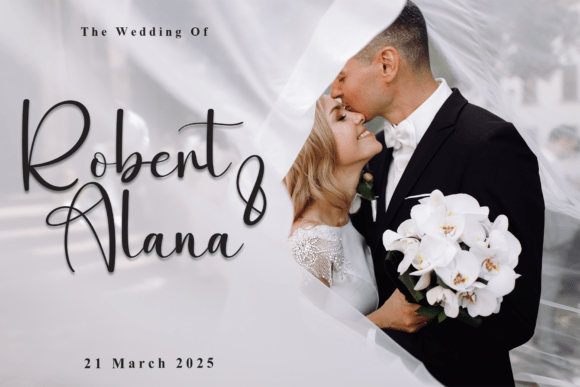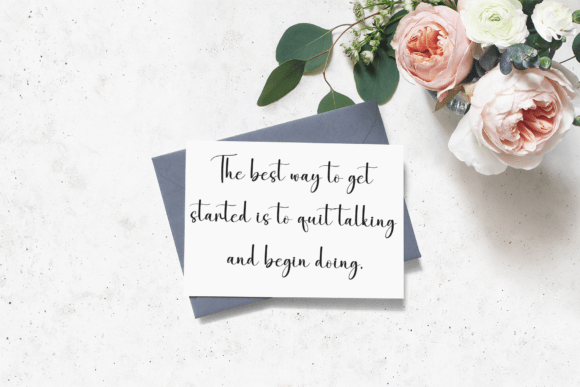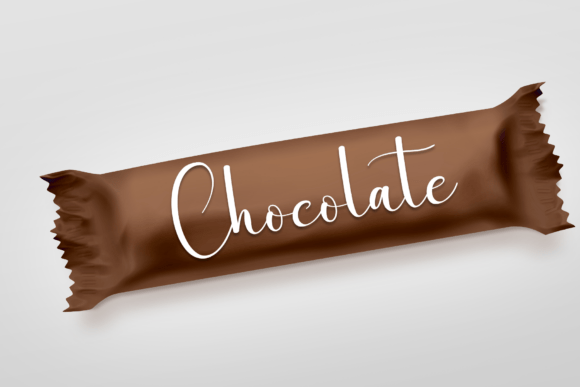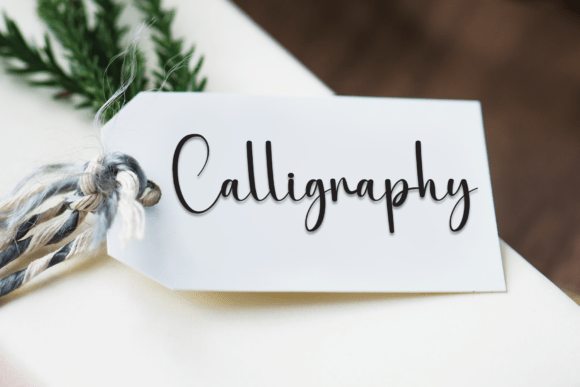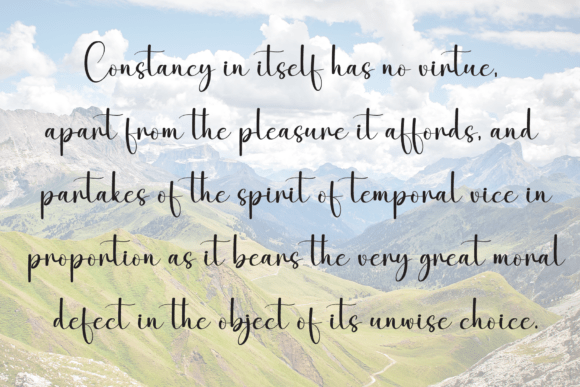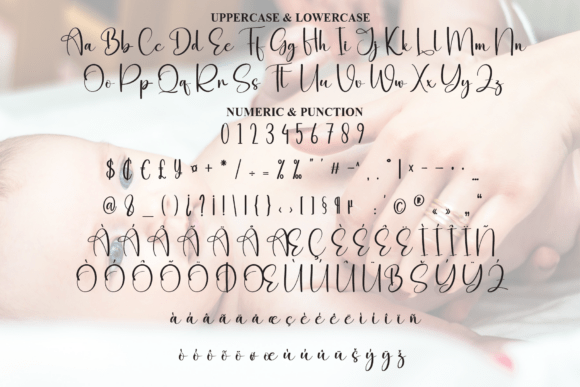
Introducing Body Baby Font: Elevate Your Designs with Elegance and Fluidity
In the world of typography, few fonts manage to capture the essence of elegance and fluidity as effortlessly as Body Baby Font. This stylish handwritten script font has been making waves in the design community, and for good reason. Its smooth, flowing strokes create a natural and sophisticated feel, making it the perfect addition to any design project that requires a touch of class and charm.
The Characteristics of Body Baby Font
Body Baby Font is a true standout in the world of script fonts. Its unique blend of traditional and modern elements creates a distinctive look that is both timeless and contemporary. Here are just a few of the key characteristics that set Body Baby Font apart:
- Smooth, flowing strokes: The fluid strokes of Body Baby Font create a sense of movement and energy, adding a dynamic touch to any design.
- Elegant and sophisticated feel: The font’s refined lines and curves evoke a sense of luxury and sophistication, making it perfect for high-end branding and design projects.
- Natural and organic look: The handwritten nature of Body Baby Font gives it a natural, organic feel that is both approachable and relatable.
- Perfect for creative projects: Whether you’re designing an invitation, a logo, or a website, Body Baby Font is the perfect choice for adding a touch of elegance and whimsy.
Uses for Body Baby Font
Body Baby Font is an incredibly versatile typeface that can be used in a wide range of design projects. Here are just a few ideas to get you started:
- Branding and logos: Use Body Baby Font to create a sophisticated and memorable logo that sets your brand apart.
- Invitations and stationery: Add a touch of elegance to your invitations, wedding stationery, and other paper goods with Body Baby Font.
- Web design: Use Body Baby Font to create a beautiful and engaging website that showcases your brand’s personality.
- Packaging and product design: Add a touch of whimsy and sophistication to your product packaging with Body Baby Font.
Why Designers and Crafters Love Body Baby Font
Body Baby Font has quickly become a favorite among designers and crafters, and it’s easy to see why. Here are just a few reasons why this font has captured the hearts of so many:
- Unique and distinctive: Body Baby Font is a true standout in the world of typography, offering a unique and distinctive look that sets it apart from other fonts.
- Elegant and sophisticated: The font’s refined lines and curves evoke a sense of luxury and sophistication, making it perfect for high-end design projects.
- Easy to read: Despite its elegant and flowing strokes, Body Baby Font is incredibly easy to read, making it perfect for use in a wide range of design projects.
- Versatile: Body Baby Font can be used in everything from branding and logos to invitations and web design, making it a valuable addition to any designer’s toolkit.
Tips for Using Body Baby Font
While Body Baby Font is incredibly easy to use, here are a few tips to help you get the most out of this beautiful typeface:
- Use it sparingly: While Body Baby Font is incredibly elegant and sophisticated, it can be overwhelming if used too much. Use it sparingly to add a touch of class and whimsy to your design.
- Pair it with contrasting fonts: Pair Body Baby Font with contrasting fonts to create visual interest and add depth to your design.
- Experiment with different colors: Body Baby Font looks beautiful in a wide range of colors, so don’t be afraid to experiment and find the perfect hue for your design.
Body Baby Font is a truly exceptional typeface that offers a unique blend of elegance, fluidity, and sophistication. Whether you’re a designer, crafter, or simply someone who appreciates beautiful typography, Body Baby Font is sure to captivate and inspire. With its smooth, flowing strokes and natural, organic look, this font is perfect for adding a touch of class and whimsy to any design project. So why wait? Download Body Baby Font today and start elevating your designs to new heights!